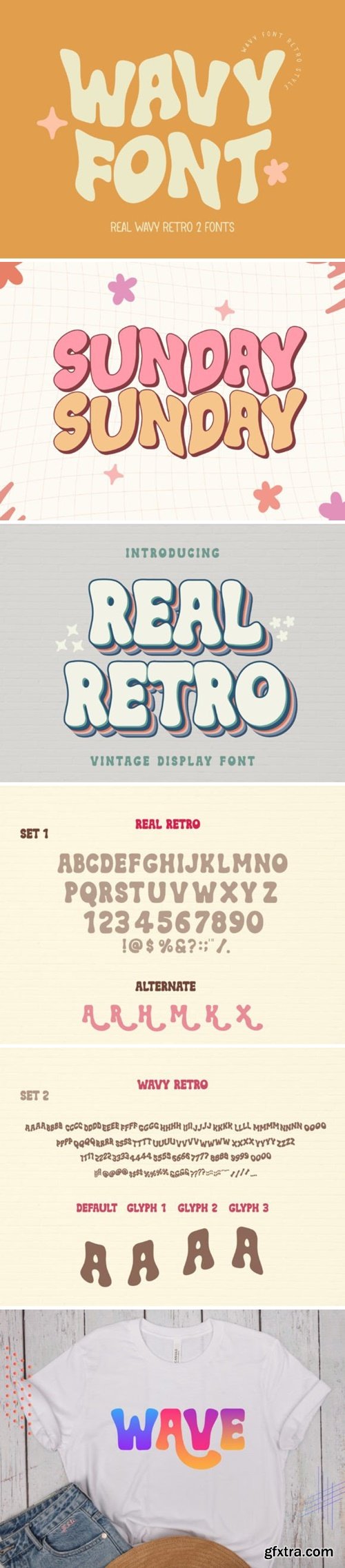
The wavy retro font is a Groovy font style with a wavy effect. Its playful yet stylish look makes it perfect for retro-inspired projects and branding. This font is a stylish choice for designs seeking a nostalgic touch and a nod to retro trends. Fun and perfect for every design. This font is PUA encoded which means you can access all of the amazing glyphs and ligatures with ease!